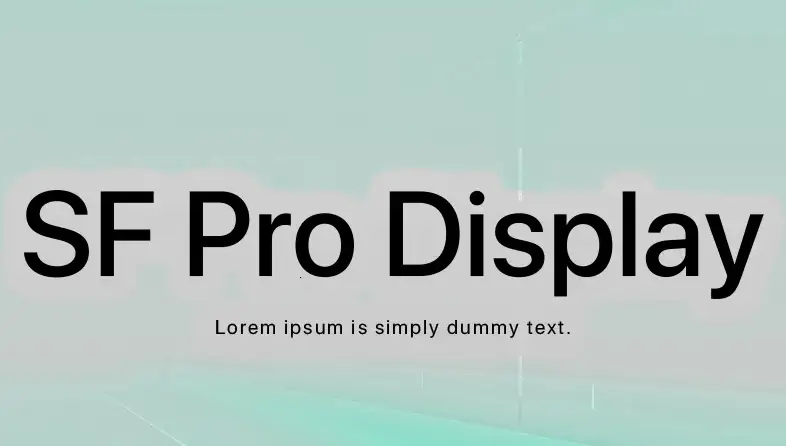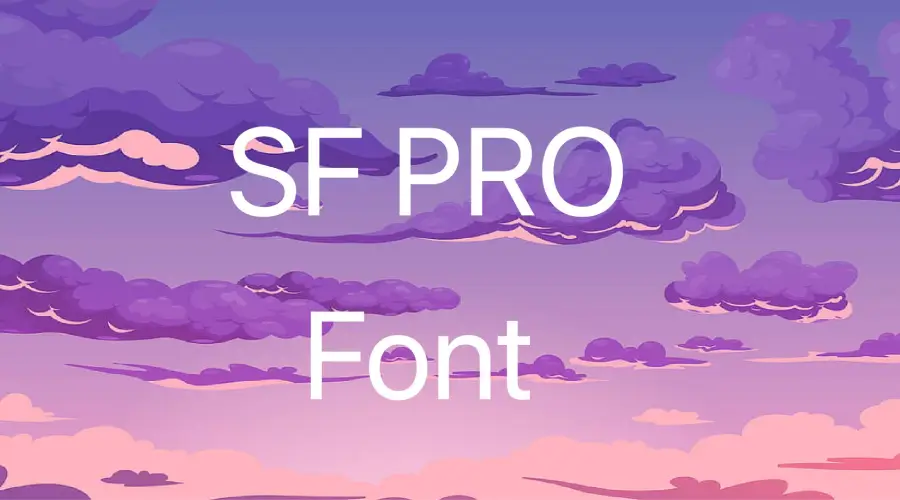
SF Pro (San Francisco Pro) is Apple’s proprietary system font family, designed in-house for optimal clarity and consistency across all Apple platforms. Introduced in 2015 and refined in 2017, it’s a neutral, highly legible sans-serif that replaced Helvetica Neue across iOS, macOS, iPadOS, tvOS, and visionOS.
The SF Pro Font
Apple Inc. created the SF Pro font for its platforms and devices. This font is based on the San Francisco typeface originally designed for the Apple Watch. It is a font that Apple Inc. created for its platforms and devices. The SF or San Francisco Pro font has capital and lowercase letters with full punctuation marks. You can use the font for personal and commercial projects, but you must follow a license agreement from Apple.
Where to Use the Font
The SF Pro font is suitable for creating text and graphics for Apple platforms and devices, such as apps, websites, logos, titles, or banners. The font can also be used for print materials, such as posters, flyers, or brochures. The font can adapt to different sizes and layouts, providing a consistent and harmonious look across various media.
The SF Pro font is a flexible and versatile typeface that can appeal to Apple users and anyone who likes a clean and elegant look in their text. The font is free to download and use for personal and commercial projects; whether you want to create an app, a website, or a logo, the SF Pro font can help you achieve a professional and impressive result.